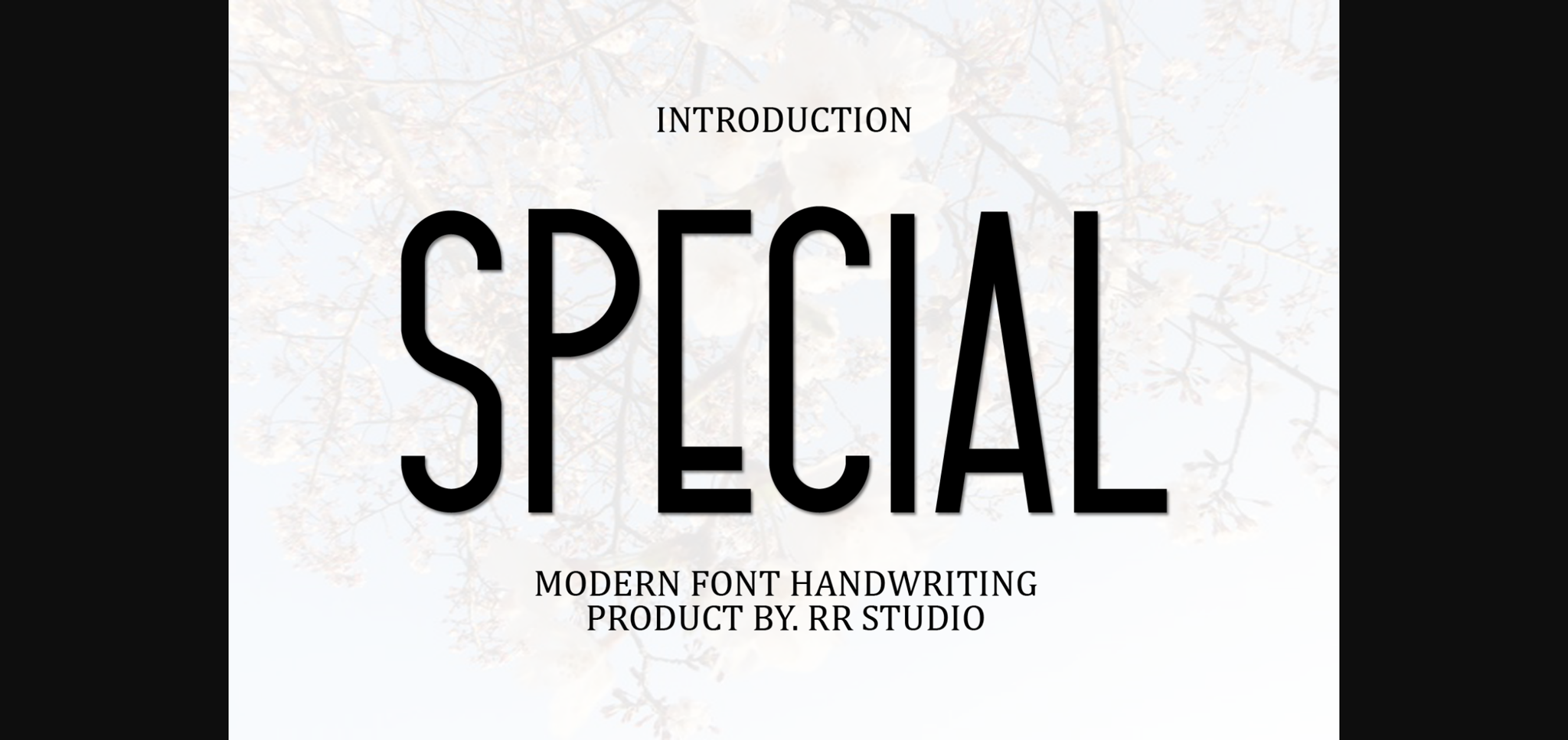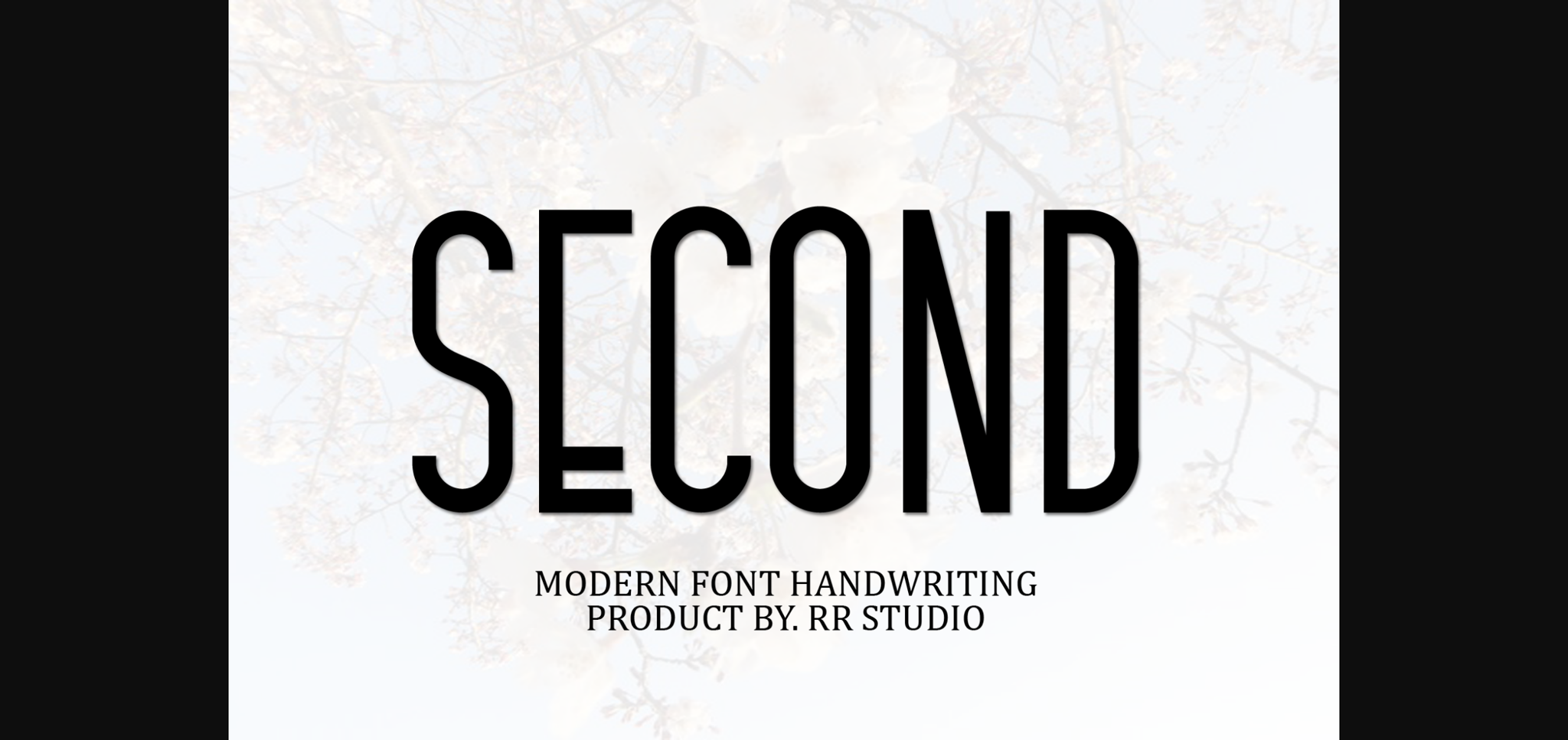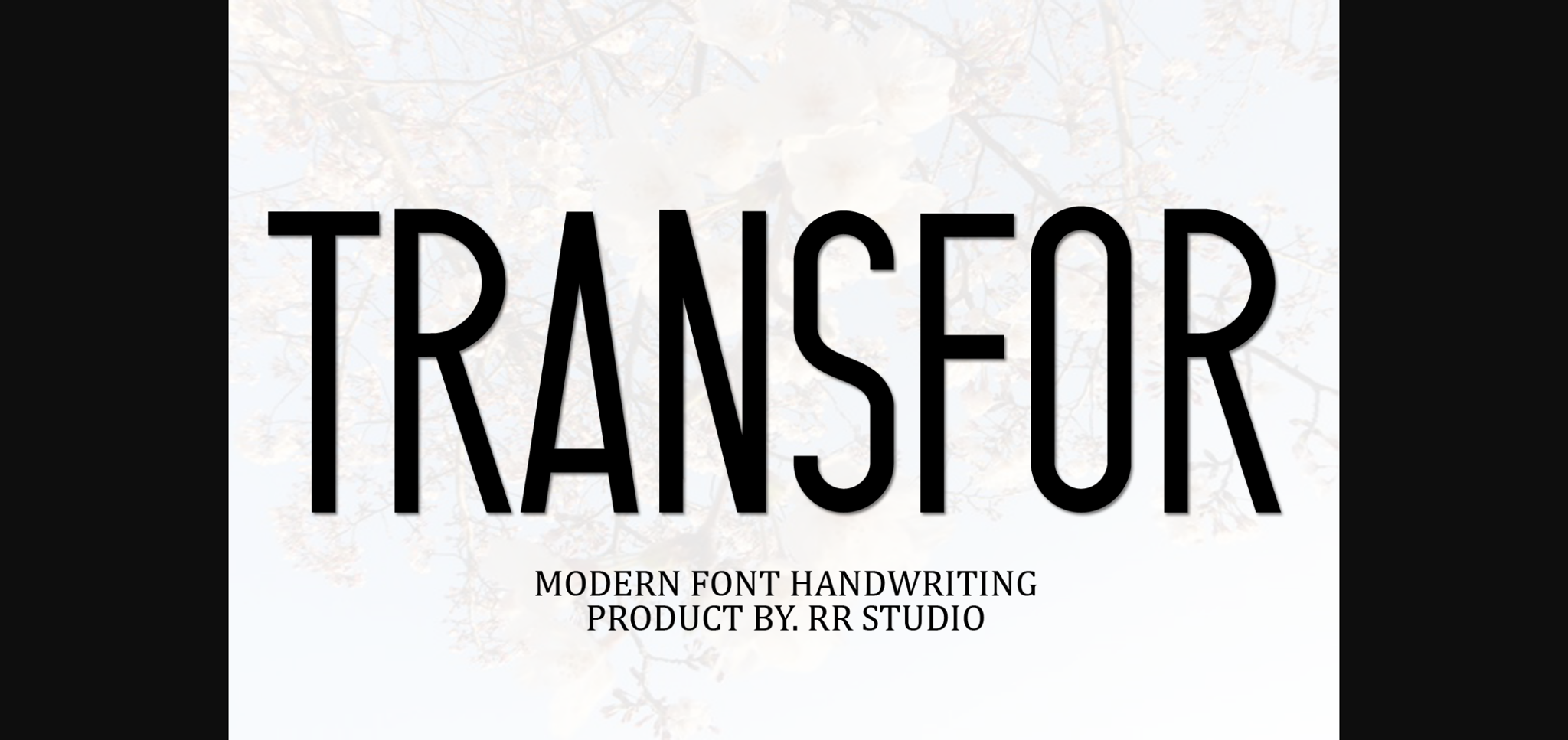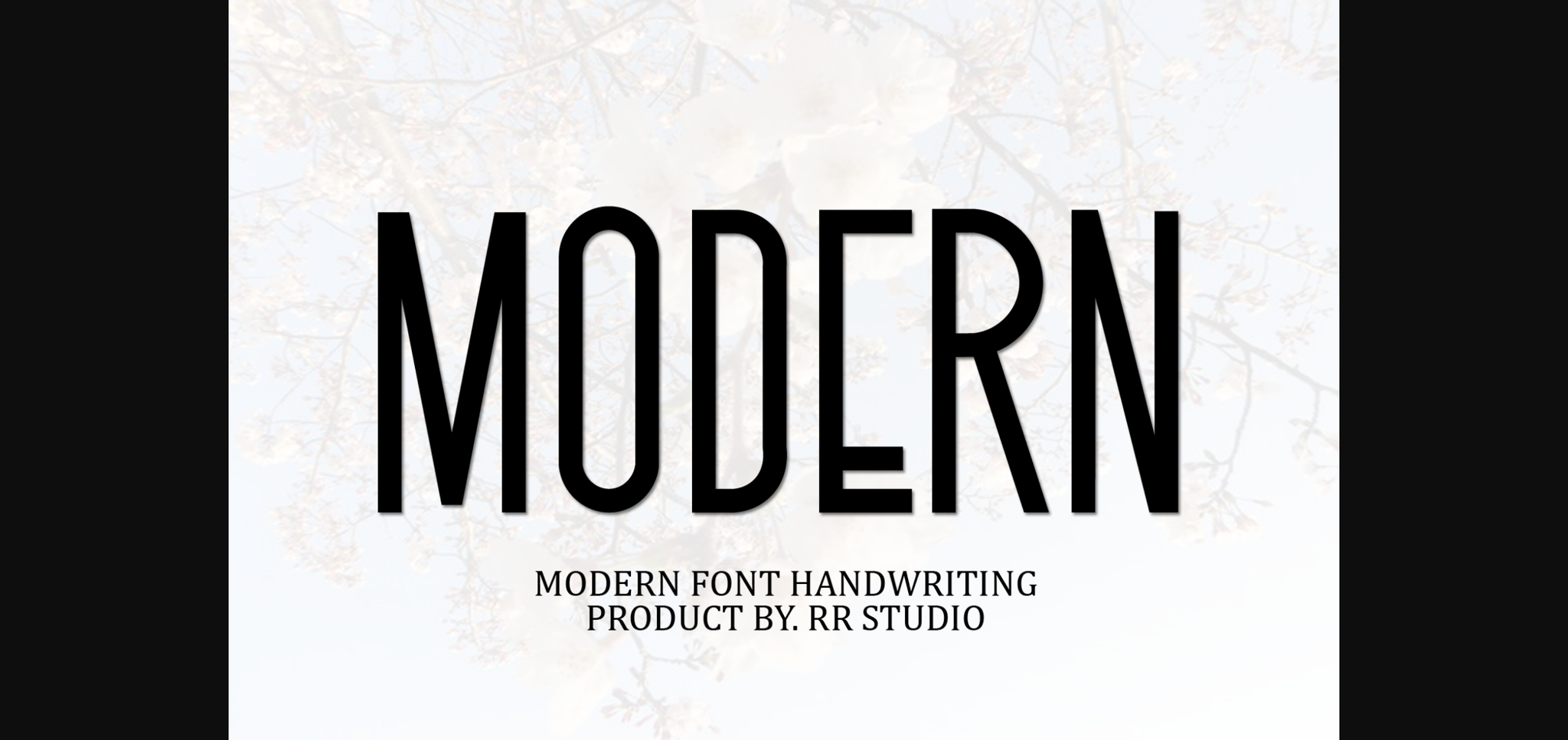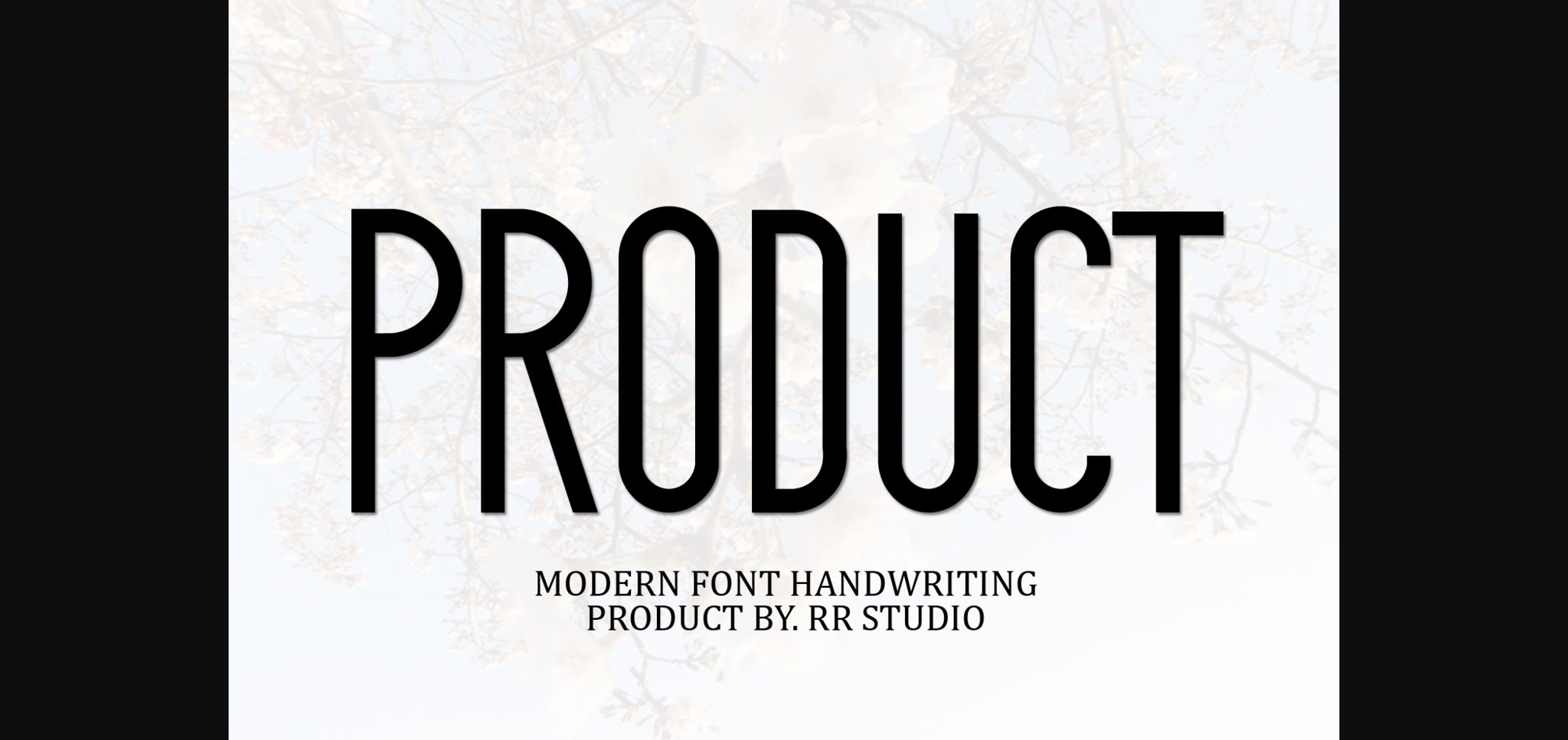
HomeSans Serif FontsSpecial Font Sans Serif Fonts Special Font FacebookXPinterestWhatsApp 1 of 8 ... Special Font Poster 2... Special Font Poster 3... Special Font Poster 4... Special Font Poster 5... Special Font Poster 6... Special Font Poster 7... Special Font Poster 8... About Special Font Special is a stylish and incredibly elegant sans serif font. It looks stunning on wedding invitations, thank you cards, quotes, greeting cards, logos, business cards and every other design which needs a handwritten touch. DOWNLOAD NOW People also explored Orcatlys Font Sans Brush Font Gorga Grotesque Sweet Dreams Font Bitter Font Dasmita Font Skylight Font One Story Font Machaqa Years Font 329 0 TagsSpecialSpecial Font Previous articleDivine Draft FontNext articleComaxi Goquick Font LEAVE A REPLY Cancel reply Comment: Please enter your comment! Name:* Please enter your name here Email:* You have entered an incorrect email address! Please enter your email address here Website: Save my name, email, and website in this browser for the next time I comment. Personal Use Free Goodline Font Personal Use Free Read more about this font Kaysan Personal Use Free Read more about this font Sui Genesis Personal Use Free Read more about this font Beautiful Personal Use Free Read more about this font BLOG Free Fonts Risk: Why Free Fonts Can Be Dangerous for Designers Free Fonts Risk: Why Free Fonts Can Be Dangerous for Designers Using free fonts is a common practice in web and graphic design. However, the... 5 Fonts That Will Dominate Design Trends in 2026 How to Cut Any Font on Cricut: Convert a Font to SVG (Free) Transform Your Website: Elevate Your Typography with 7 Best Web Font Generators